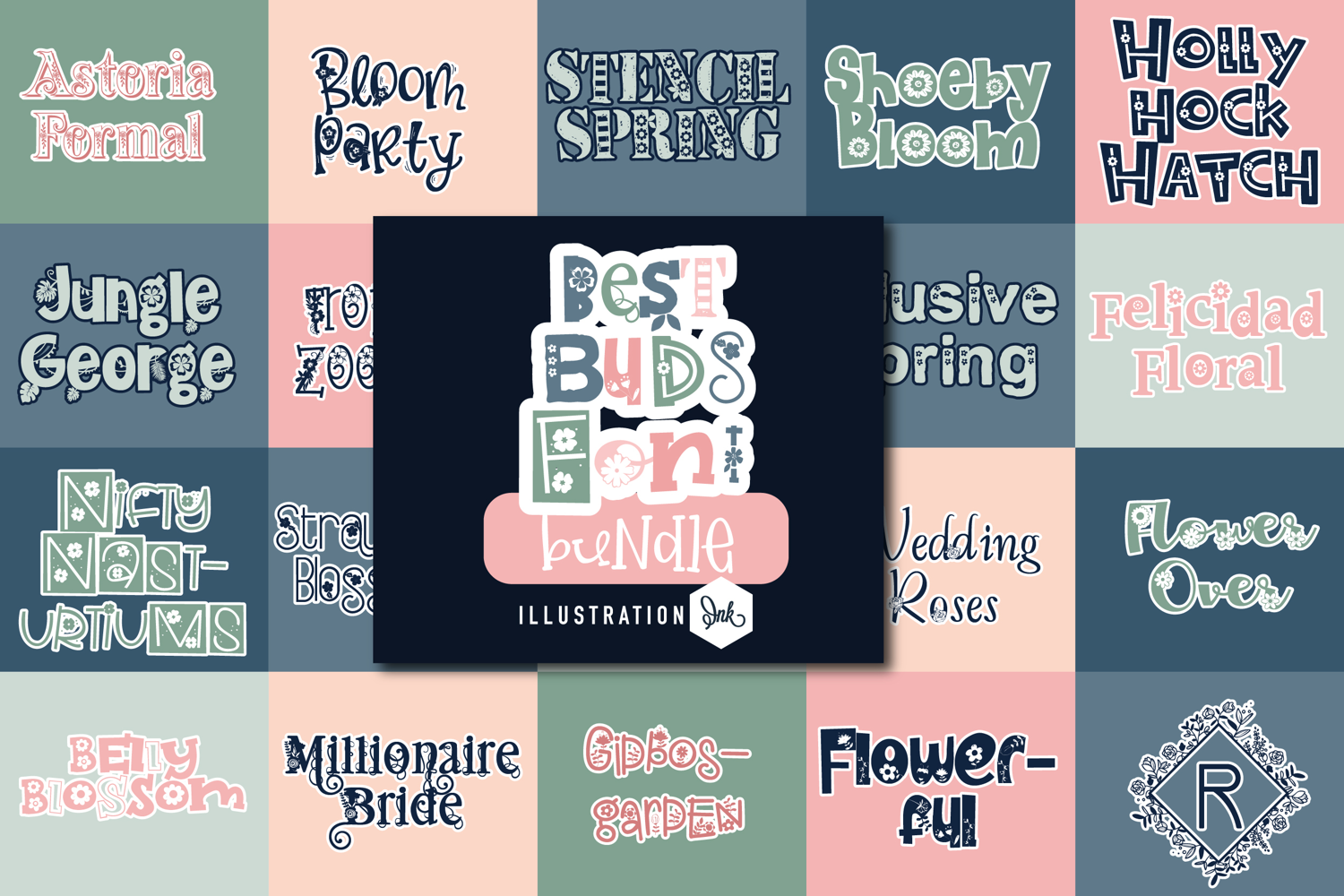
Best Buds Font Bundle
This hand-crafted font bundle contains 20 font families of cute, floral fonts! Zip file contains both the .otf and .ttf fonts!
• The letters are not perfectly uniform in size or shape.
• There may be slight variations in the spacing between letters and words.
• The font may have a "wiggly" or "squiggly" appearance.
• The font may be difficult to read at small sizes.